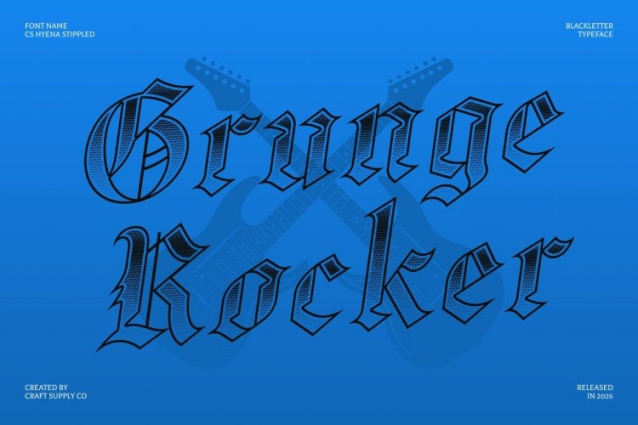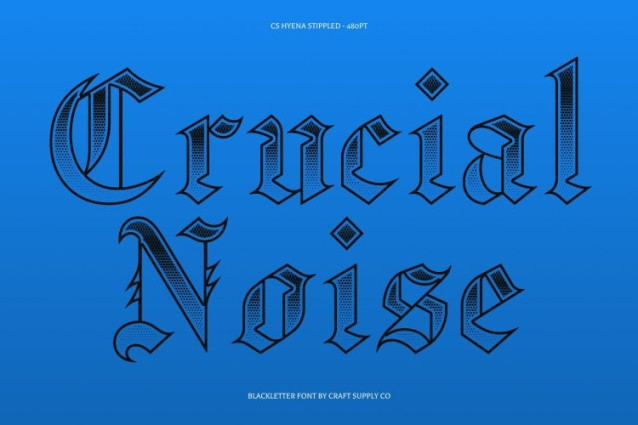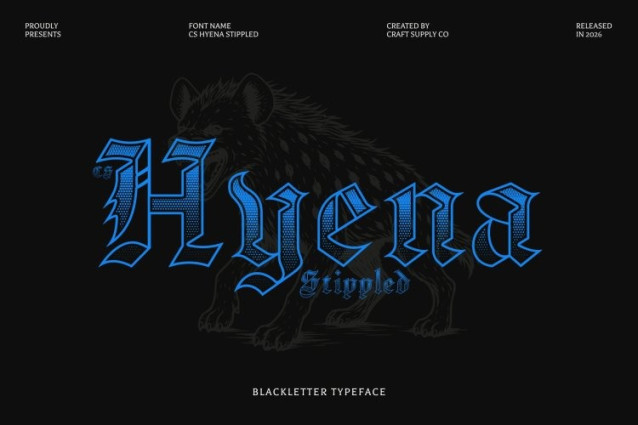
CS Hyena Stippled Font
CS Hyena Stippled Font – This is a striking display typeface inspired by the ornate lettering of medieval manuscripts and early printed books. Rooted in Gothic tradition, it features intricate details, sharp angular strokes, and flowing decorative curves that capture the grandeur of classic Old English typography. This combination creates a refined and historical aesthetic that feels both timeless and relevant for modern design.
Intricate Letterforms with Sophisticated Character
Each character is crafted with a careful balance of bold edges and elegant curves, producing a visually rich and sophisticated texture. The stippled effect adds depth and personality, enhancing the historical charm while giving the font a unique and artistic finish. The result is a typeface that instantly elevates layouts with a sense of heritage, prestige, and visual drama.
Perfect for Vintage and Heritage Branding
This is ideal for vintage branding, logos, packaging, editorial headlines, posters, invitations, and promotional materials. Its Old English style conveys authority, tradition, and craftsmanship, making it a strong choice for projects that celebrate history while maintaining a polished contemporary appeal.